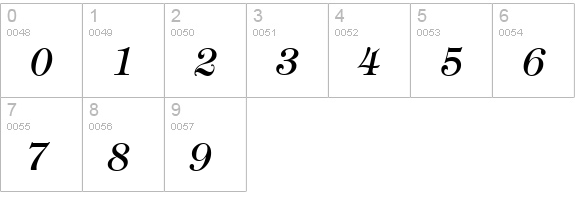
Timber-Italic Font Details
Timber-Italic is a distinctive, italic variant in the Timber typeface family \xE2\x80\x94 well suited to design and typography projects.
Introducing Timber-Italic font, a sleek and modern typeface that exudes sophistication and elegance. With its slanted letterforms and stylish curves, Timber-Italic is perfect for adding a touch of class to any design project. Whether you are creating a logo, website, or printed materials, this font will make your text stand out and leave a lasting impression. The best part? Timber-Italic is completely free to download at FontsMarket.com. Yes, you read that right – this high-quality font can be yours at no cost, allowing you to enhance your creative projects without breaking the bank. So why wait? Head over to FontsMarket.com and get your hands on Timber-Italic today!